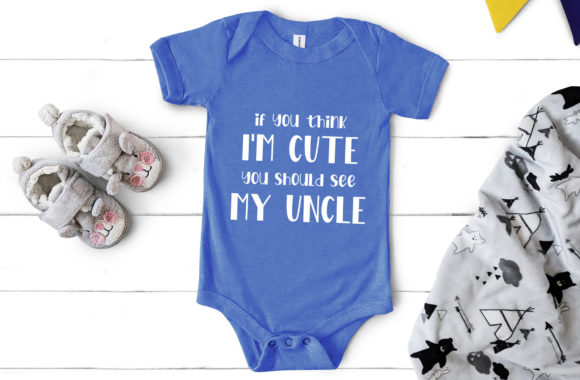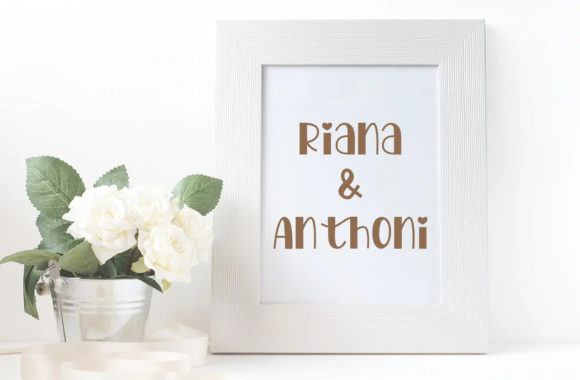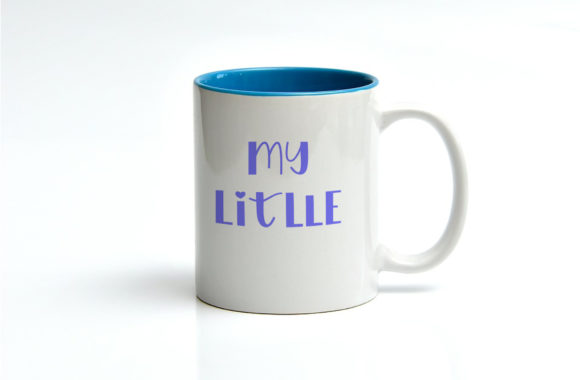
Introduction to Realities Font
You’re working on a creative project, and you need a font that makes your design stand out. You scroll through your font library, but nothing seems to capture the essence of your vision. That’s when you stumble upon it – a sleek, modern display font that exudes confidence and dynamism. Welcome to the world of Realities Font, a high-quality design resource that’s about to revolutionize your creative workflow.
Imagine having a font that can add tons of stylish character to your designs, effortlessly elevating your project from good to great. With Realities Font, you can achieve just that. This font is perfect for designers who crave a unique and modern look, and its transparent background makes it easy to integrate with any design element.
Key Features of Realities Font
- High-quality, professional font suitable for creative projects, ideal as a design resource.
- Transparent background, allowing for seamless integration with various backgrounds and designs.
- Comes in a single font size, making it easy to use in various design contexts.
- Designed with a high resolution, ensuring crisp and clear text display even at large sizes.
- Unique, creative design makes it stand out as a distinctive design resource for creative projects.
Honest Review: Realities Font
As a designer, I’m always on the lookout for high-quality design resources that can elevate my creative projects. Recently, I had the chance to work with the Realities Font, and I must say, it’s been a game-changer.
- What works well: ✨ The Realities Font offers a wide range of styles and weights, making it perfect for any design project. The transparent background is also a great feature, allowing for seamless integration with other design elements.
- What works well: ✨ The font is also incredibly versatile, suitable for both digital and print designs. Whether you’re working on a logo, poster, or website, the Realities Font is sure to impress.
However, I did encounter some limitations while using the font. ⚠️ The font can be quite large in file size, which can slow down design load times. Additionally, some users may find the font’s complexity overwhelming, especially for simpler designs.
Overall, I’m thoroughly impressed with the Realities Font. Its high-quality design and versatility make it an excellent addition to any design resource. If you’re looking for a font that can elevate your creative projects, I highly recommend giving the Realities Font a try.
The Realities Font is commonly used in creative projects, such as graphic design, digital art, and typography. Its high-quality design makes it a popular choice among designers and artists.